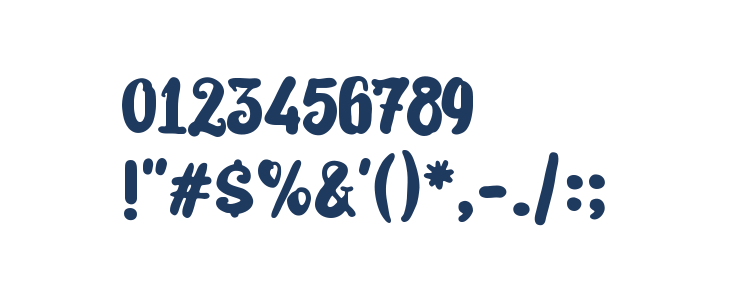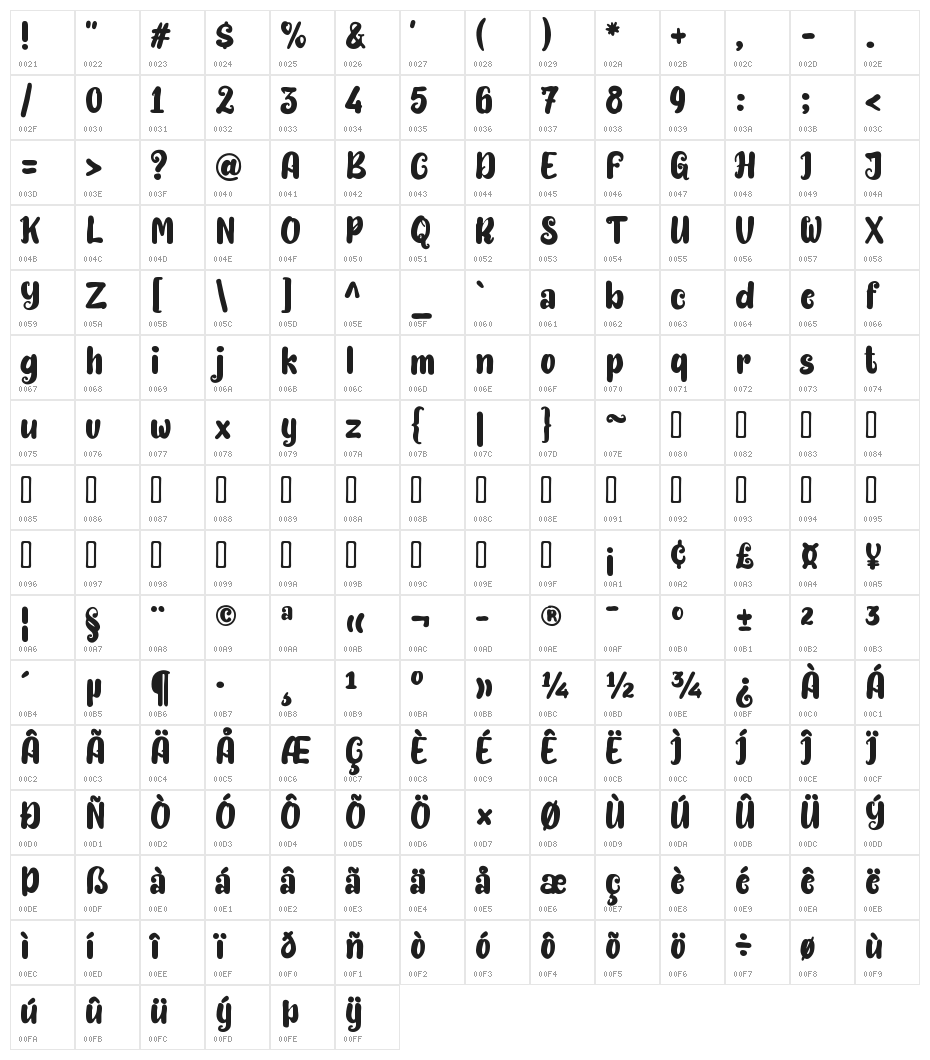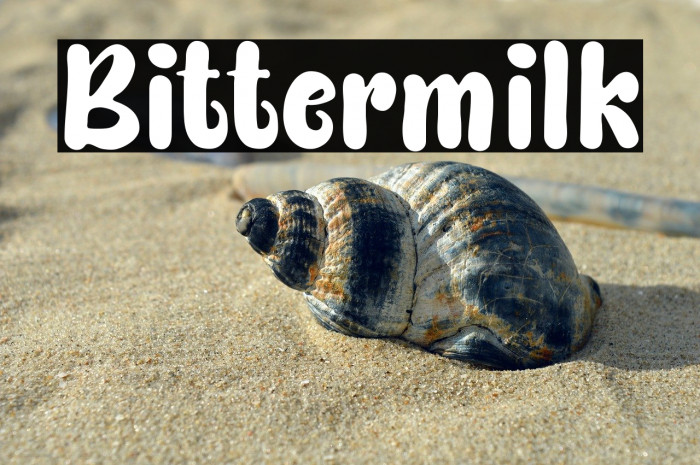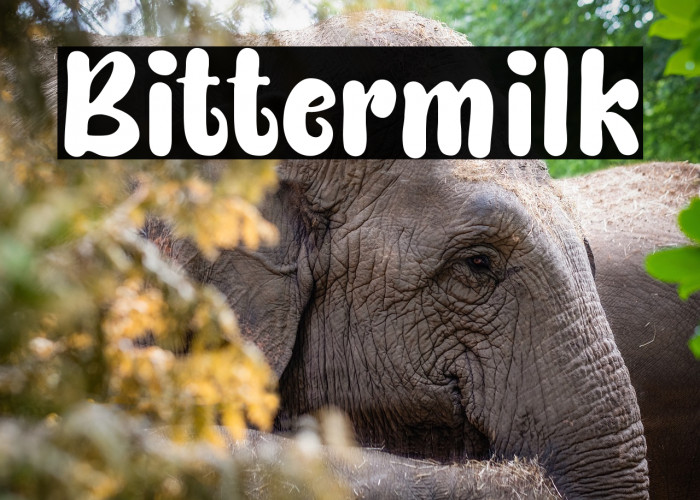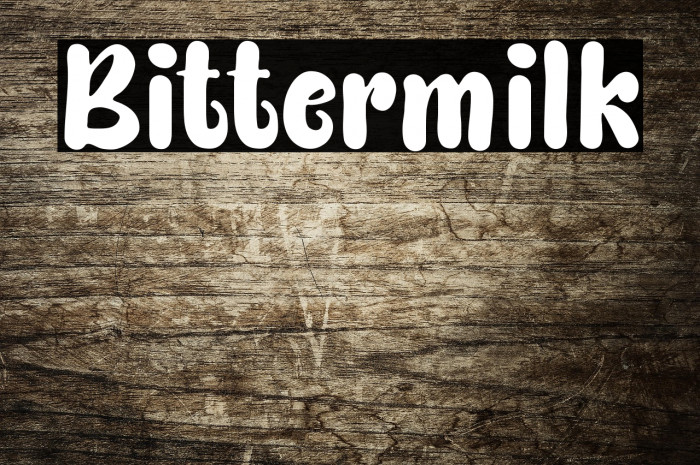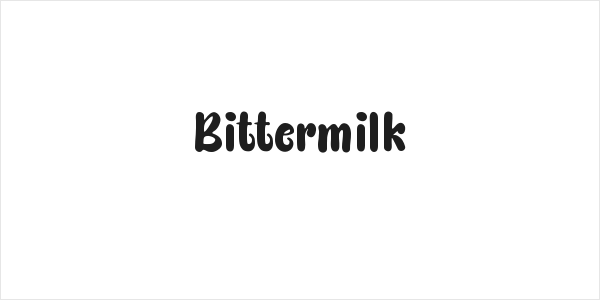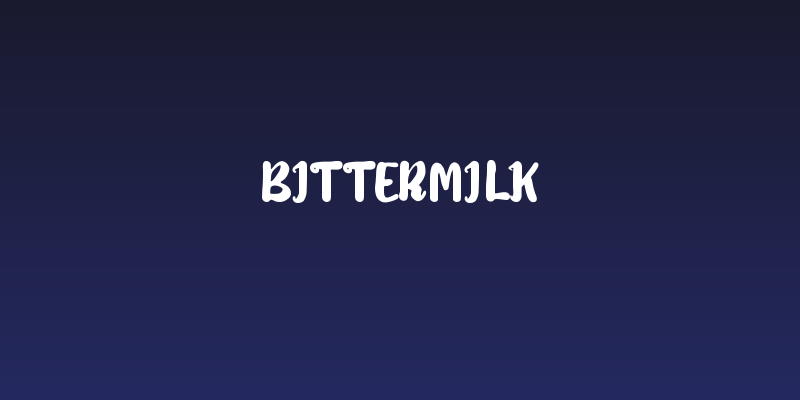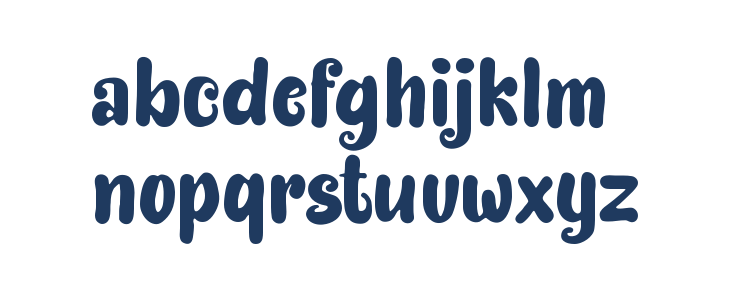
Bittermilk Font
Bittermilk Description
This font features a bold and playful style with a strong presence. The characters are rounded and have a slightly whimsical appearance, giving them a friendly and approachable feel. The strokes are thick and consistent, contributing to a cohesive and robust look. The uppercase letters are tall and commanding, while the lowercase letters maintain a similar weight, ensuring uniformity across the text. The numerals and special characters are designed to match the overall aesthetic, providing a seamless integration. This font is ideal for projects that require a bold and engaging visual impact.
| Overall Style | Playful, Bold |
| Proposed Projects | Ideal for children's books, playful branding, posters, and creative advertising. |